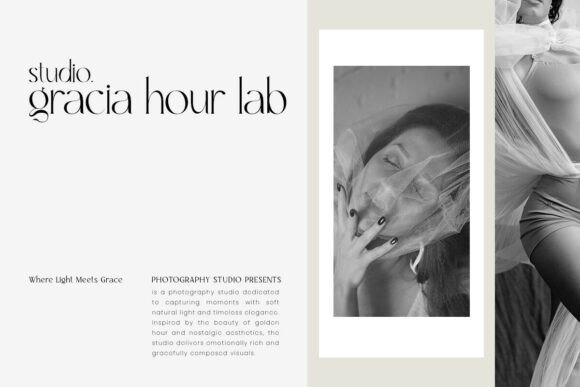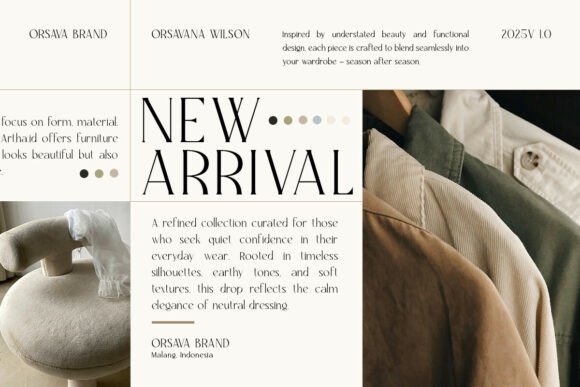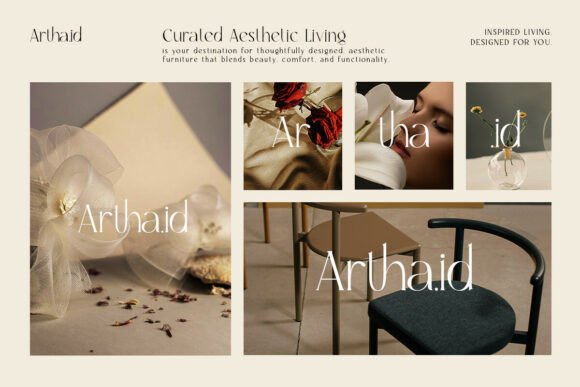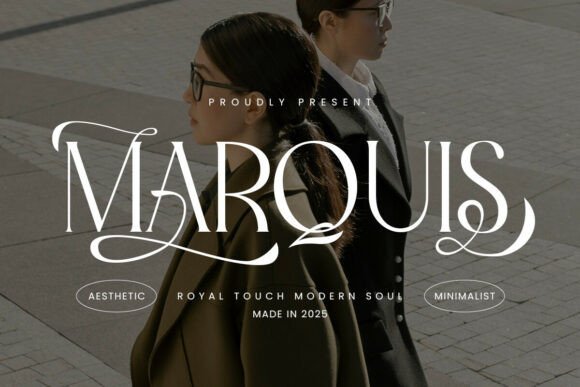
Introduction to Marquis – Elegant Modern Serif Font
Marquis is a modern serif font that blends classic elegance with a clean, minimalist soul.
Featuring graceful curves, fine details, and stylish ligatures, it’s the perfect choice for designers who want to add a touch of luxury to their work Whether you’re crafting brand logos, designing editorial spreads, or creating premium social media content, Marquis brings a timeless and sophisticated feel that works across many styles β€” from feminine to modern classic.
Key Features of Marquis – Elegant Modern Serif Font
Why Choose Marquis – Elegant Modern Serif Font?
Marquis – Elegant Modern Serif Font offers exceptional quality and versatility, making it a valuable addition to your design toolkit. Whether you’re creating for personal projects or commercial use, Marquis – Elegant Modern Serif Font delivers professional results.